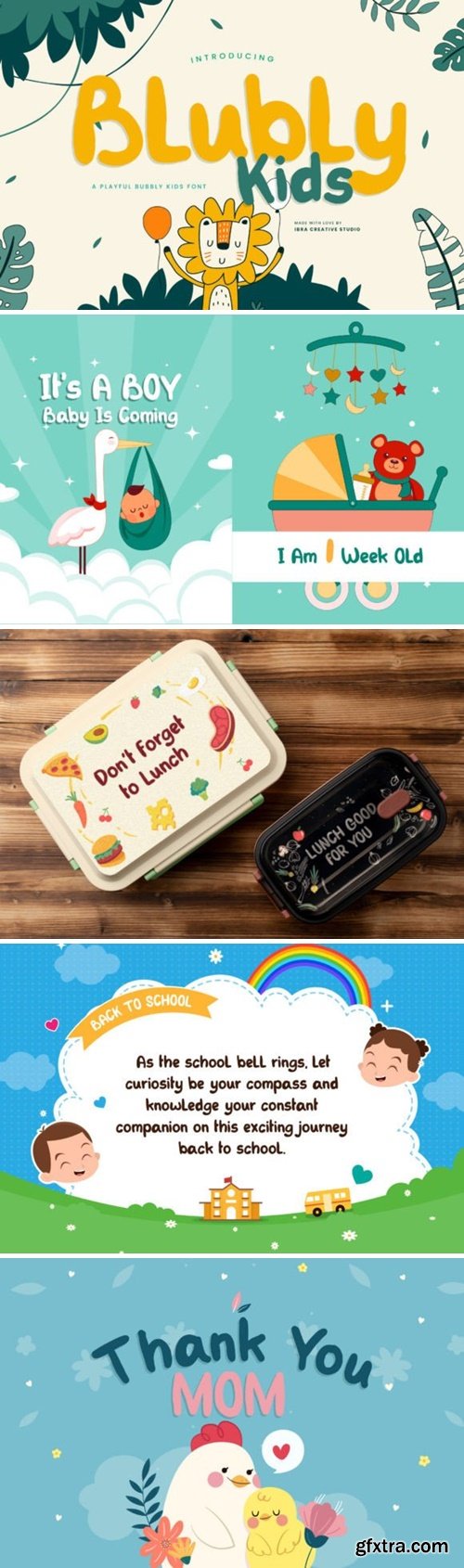
Blubly Kids is a delightful and exuberant font that encapsulates the essence of childhood with its playful and bubbly design. Each letter dances with a buoyant energy, featuring rounded edges and whimsical details that evoke a sense of lighthearted joy. The font’s vibrant and cheerful demeanor makes it a perfect choice for children’s projects, adding a splash of fun to anything from storybooks to playful signage.